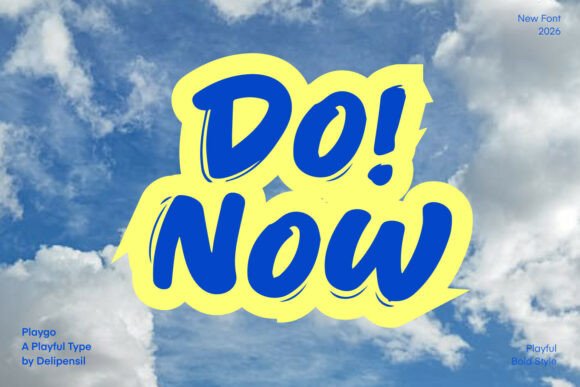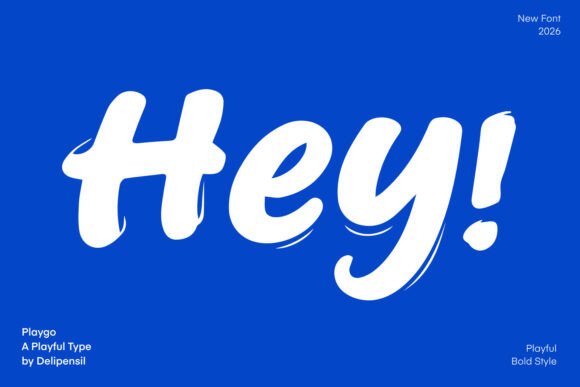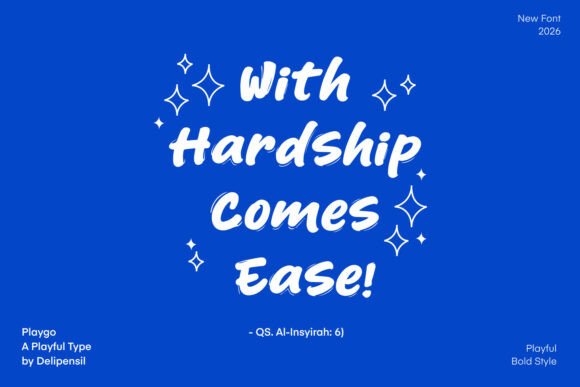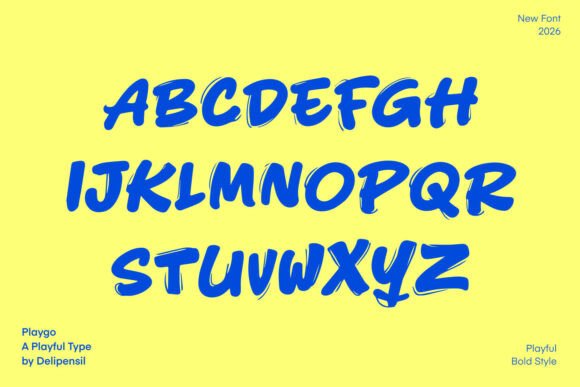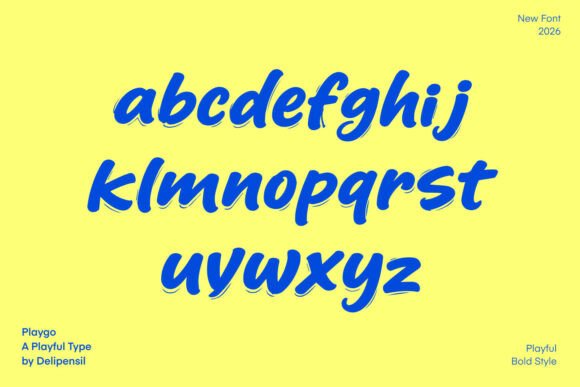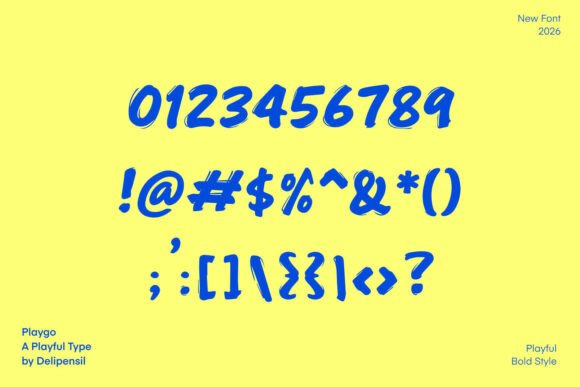
Introduction to Play Go Font
**Playgo – Bold Playful Display Font** **Bismillah, Introduction Playgo** is a bold, playful display font with a hand-drawn brush style that brings fun, energy, and personality to your designs.
Designed to stand out, Playgo is perfect for projects that need a strong visual impact while staying friendly and approachable With thick strokes and dynamic letterforms, Playgo works beautifully for branding, posters, packaging, social media, kids’ projects, and creative headlines.
Key Features of Play Go Font